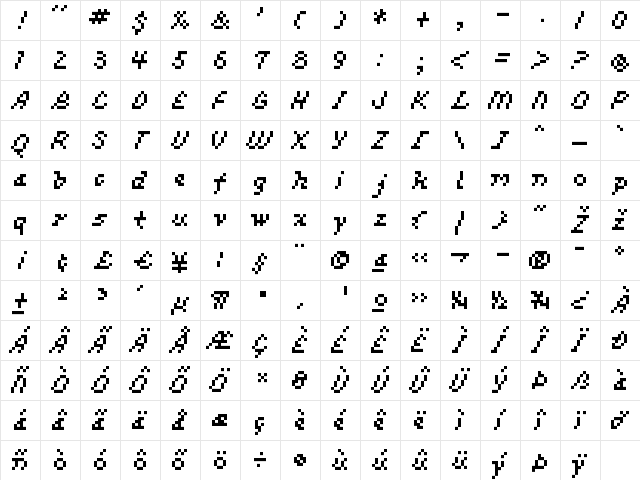
lettau 06_55 Regular
| Designer | Craig Kroeger |
Design Context for lettau 06_55 Typeface
lettau 06_55 is a composed and adaptable typeface that performs quietly and consistently across a wide range of design contexts.